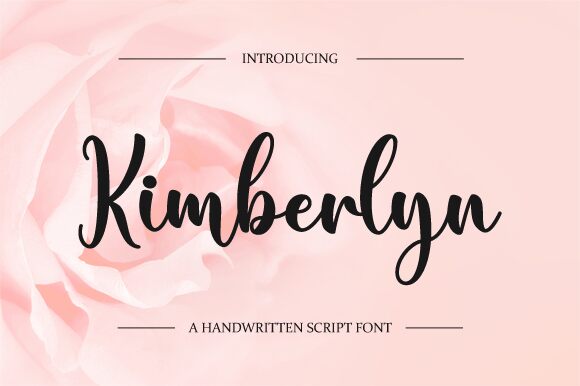
Kimberlyn
Kimberlyn, a captivating calligraphic font designed by Nirmala Creative, effortlessly blends graceful strokes and fluid elegance. This distinctive typeface exudes a sense of refined sophistication, with its delicate curves and harmonious letter forms capturing the essence of timeless artistry. Kimberlyn's seamless flow and expressive, yet legible, nature lend themselves to a wide range of design applications, making it a versatile choice for those seeking to infuse their projects with a touch of sophistication and charm.
The Kimberlyn font by Nirmala Creative is well-suited for a variety of design contexts, from elegant wedding invitations and high-end branding to captivating editorial layouts and impactful social media content. Its calligraphic style and refined aesthetic make it an excellent selection for projects that require a sophisticated, yet approachable, visual identity. Whether you're crafting a luxurious product label or designing a captivating book cover, the Kimberlyn font can elevate your work with its timeless charm and versatile charm.